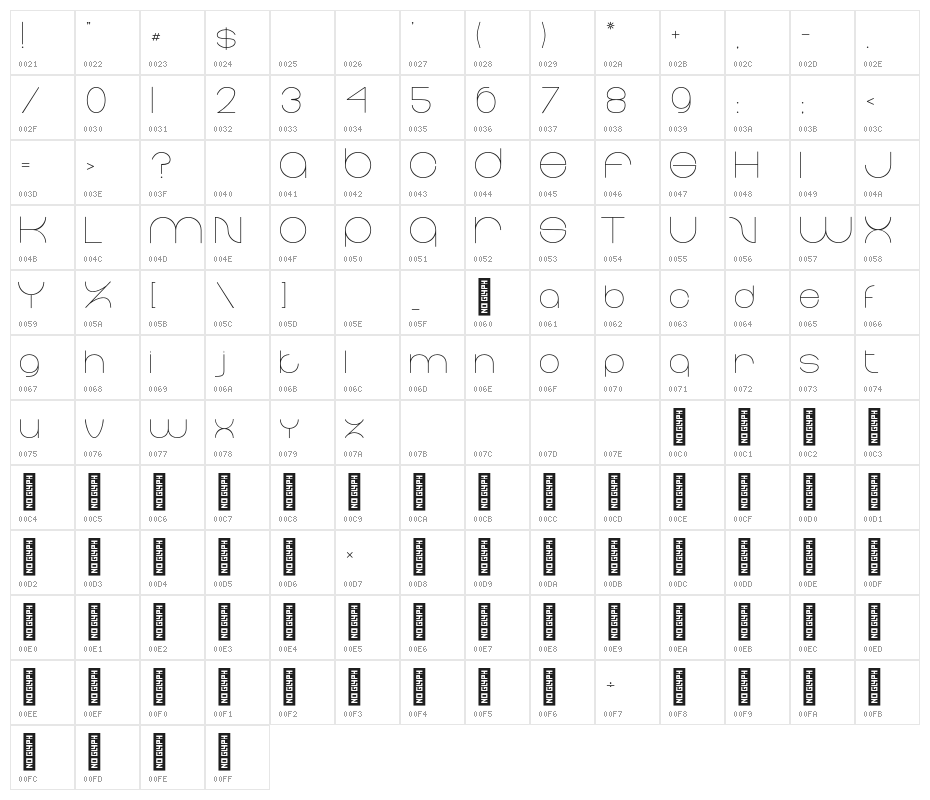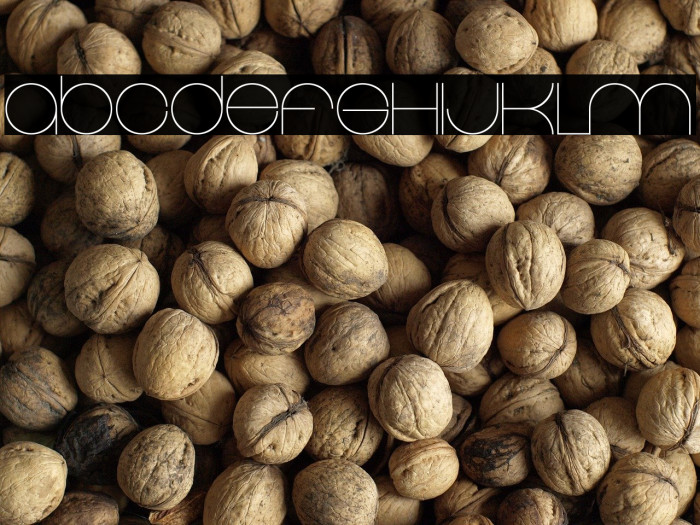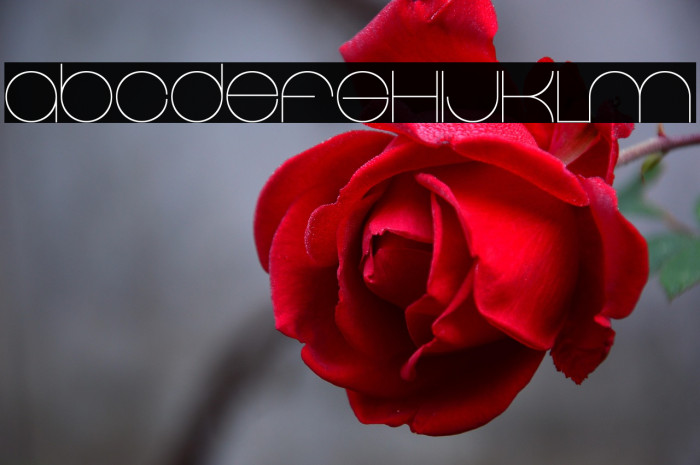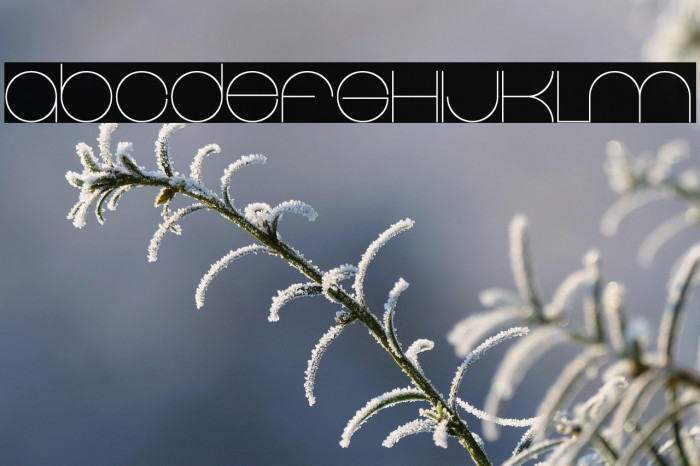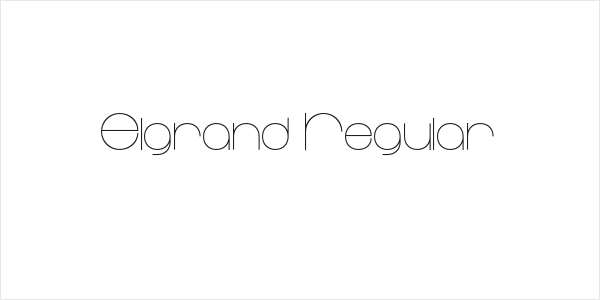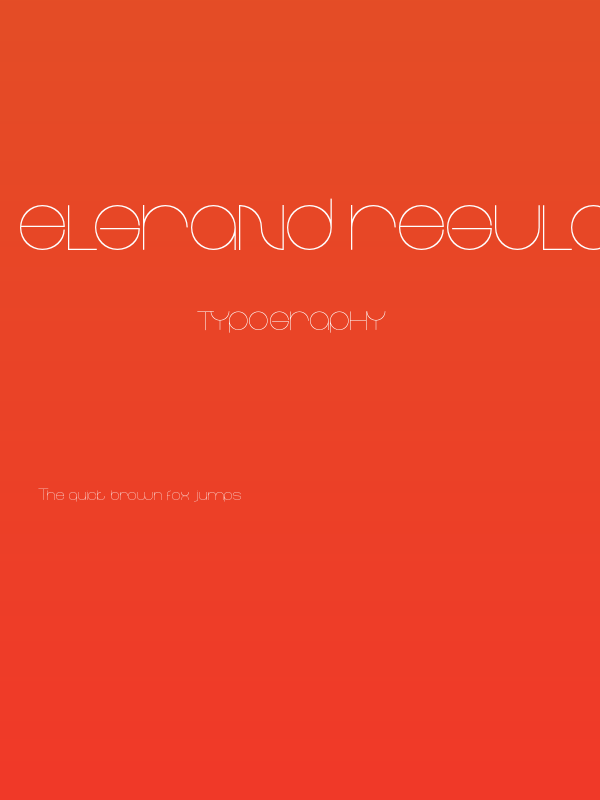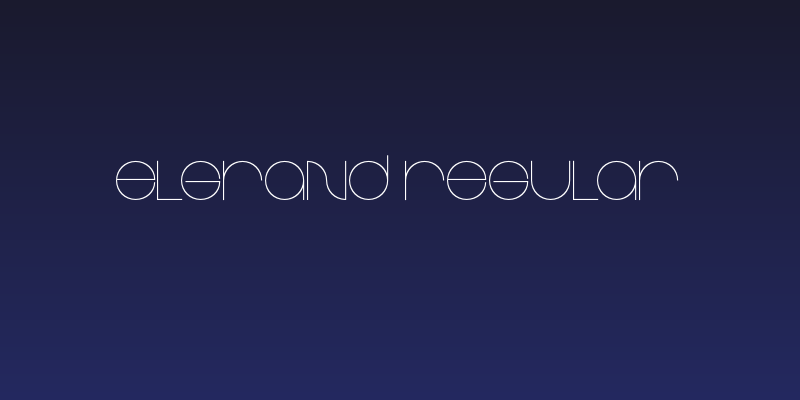
Elgrand Regular Font
Elgrand Regular Description
This font features a sleek, modern design with a minimalist aesthetic. The characters are composed of thin, uniform lines that create a sense of elegance and simplicity. The rounded edges and geometric shapes give it a futuristic feel, while maintaining readability. The uppercase and lowercase letters share a consistent style, with a slight variation in the height and width that adds visual interest. The numerals are clear and distinct, matching the overall design. Special characters are included, maintaining the same thin line structure, ensuring a cohesive look across all glyphs.